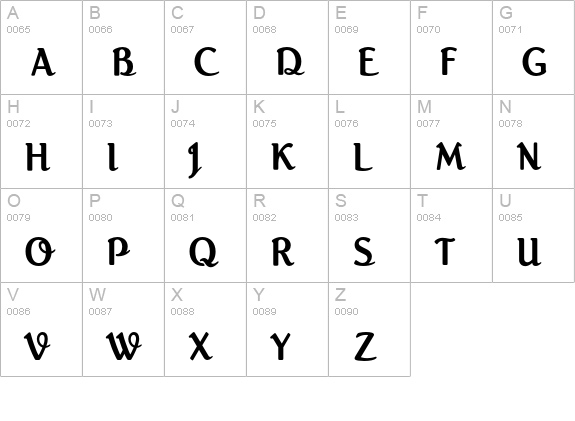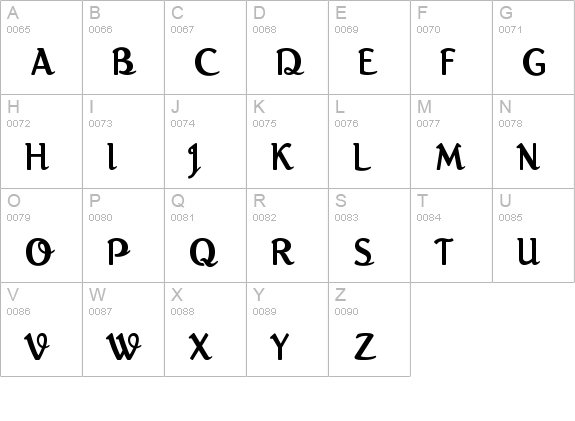
RomanScriptEF-Alternate font is a versatile typeface that adds a touch of elegance and sophistication to any design project. With its unique alternate characters, this font offers a creative and stylish look that is perfect for branding, logos, invitations, and more. The sleek lines and classic appeal of RomanScriptEF-Alternate make it a timeless choice for both print and digital applications. Best of all, RomanScriptEF-Alternate is available for free download at FontsMarket.com. Whether you're a seasoned designer looking to expand your font library or a novice in need of a quality typeface, this font is a valuable addition to any collection. Download RomanScriptEF-Alternate today and elevate your designs with its classic charm and modern flair.